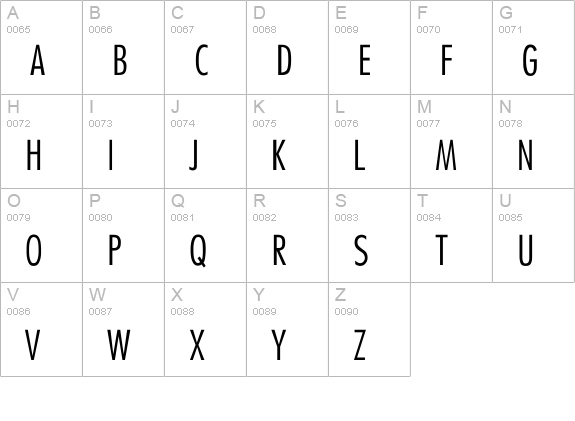
Futura-CondensedLight-Normal is the standard, neutral variant in the Futura typeface family \xE2\x80\x94 well suited to general body text, paragraphs, and standard typographic work.
Futura-CondensedLight-Normal is a sleek and elegant font that exudes modern sophistication. With its clean lines and minimalist design, this font is perfect for conveying a sense of style and professionalism in any project. The condensed style adds a touch of uniqueness and makes it ideal for headlines, titles, and other display purposes. Best of all, Futura-CondensedLight-Normal is available for free download at FontsMarket.com. Whether you're a designer looking to add a touch of class to your work or a business owner in need of a stylish font for your branding, this font is a versatile choice that won't break the bank. Download Futura-CondensedLight-Normal today and elevate your designs with this timeless typeface.